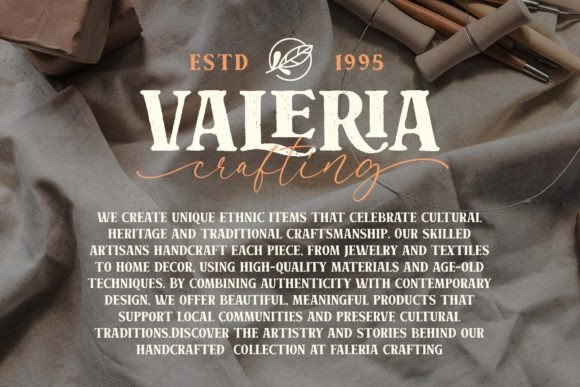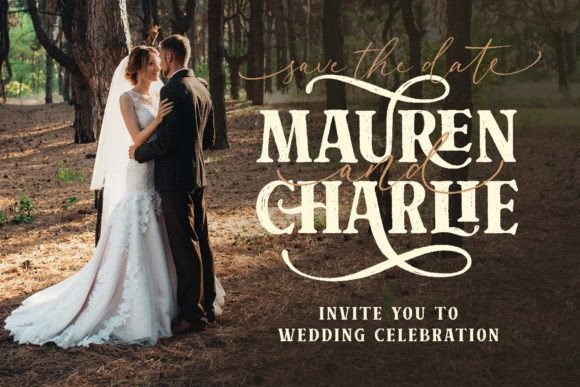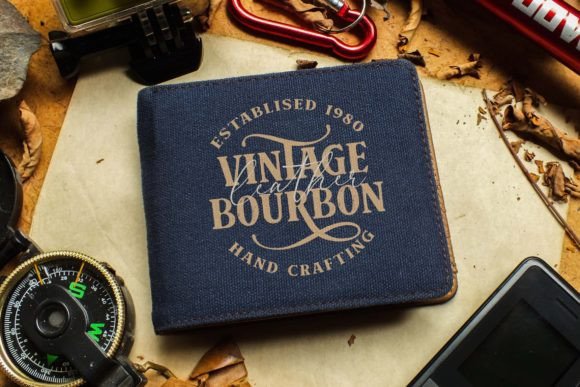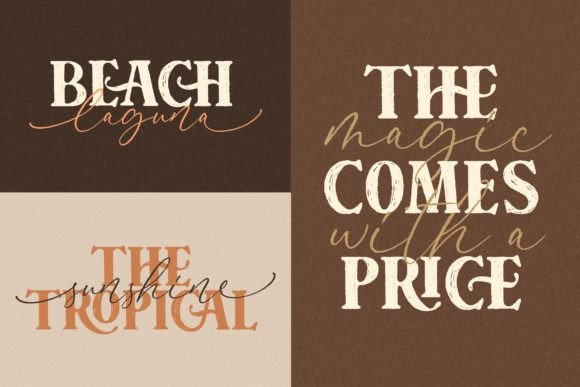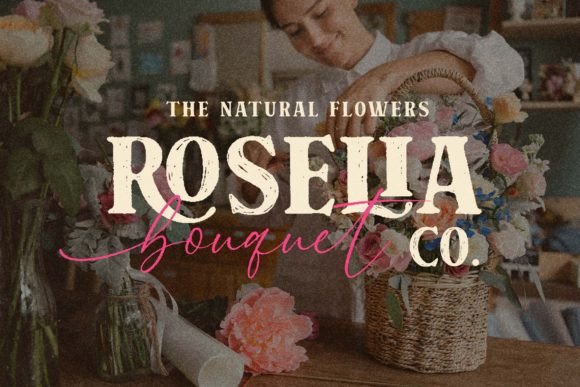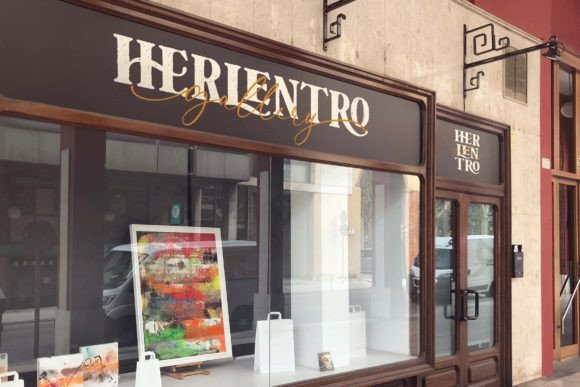
Introducing Crafter Signature: Elevate Your Designs with a Unique Serif-Script Font
In the world of typography, a well-crafted font can make all the difference in elevating your designs from ordinary to extraordinary. For designers and crafters seeking a distinctive edge, Crafter Signature is a game-changing addition to the font family. This innovative typeface seamlessly blends the classic appeal of serif fonts with the expressive charm of script handwriting, offering a versatile tool for a wide range of creative projects.
The Genesis of Crafter Signature
Crafted with meticulous attention to detail, Crafter Signature is born from hand-drawn sketches, meticulously transformed into a digital typeface. This process ensures that the font retains a natural, rough texture that adds an authentic and organic touch to your designs. The result is a font that exudes a sense of personality and craftsmanship, perfect for projects where uniqueness and character are paramount.
A Harmonious Blend of Serif and Script
What sets Crafter Signature apart is its harmonious blend of structured serifs and fluid script elements. The serif components provide a solid foundation, lending an air of sophistication and elegance to your designs. Meanwhile, the script elements inject a dose of creativity and fluidity, allowing for a dynamic and expressive visual language. This unique combination makes Crafter Signature an incredibly versatile font, suitable for a myriad of applications.
Applications of Crafter Signature
Whether you’re designing a logo, creating eye-catching packaging, or crafting a compelling poster, Crafter Signature is the ideal choice to elevate your product. Its distinctive character makes it particularly well-suited for:
• Logo Design: Stand out in a crowded marketplace with a logo that combines professionalism with personality.
• Packaging: Add a touch of elegance and whimsy to your product packaging, making it more appealing to consumers.
• Posters and Flyers: Create visually striking promotional materials that capture attention and convey your message with flair.
• Digital Media: Enhance your website, social media graphics, or digital advertisements with a font that speaks to a wide audience.
Why Choose Crafter Signature?
In a sea of generic fonts, Crafter Signature offers several key advantages:
• Uniqueness: Its distinctive blend of serif and script elements ensures your designs won’t get lost in a sea of sameness.
• Versatility: From formal to casual, Crafter Signature adapts seamlessly to various design needs and contexts.
• Authenticity: The natural texture and hand-drawn origin of the font lend an authentic, crafted feel to your work.
Crafter Signature is more than just a font; it’s a design statement. With its unique blend of structured serifs and expressive script elements, it offers designers and crafters a powerful tool to imbue their projects with personality, sophistication, and creativity. Whether you’re aiming to create a lasting impression with a logo, make your packaging pop, or craft compelling visual narratives, Crafter Signature is poised to become your go-to typeface for elevating your designs to new heights.
Embrace the possibilities with Crafter Signature and discover how this distinctive font can transform your creative workflow, making every project a standout success.